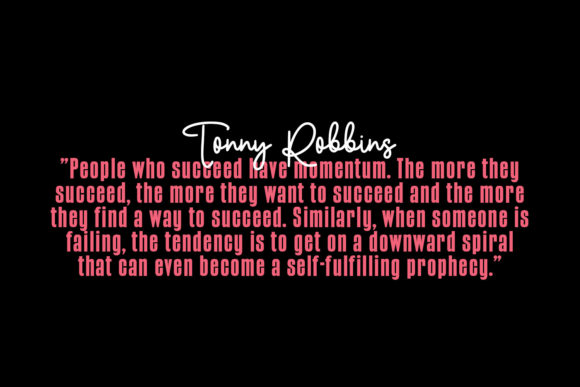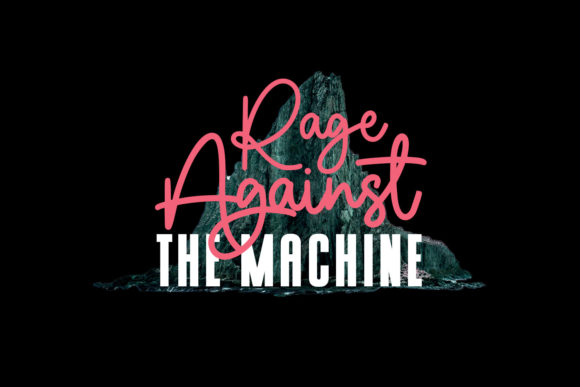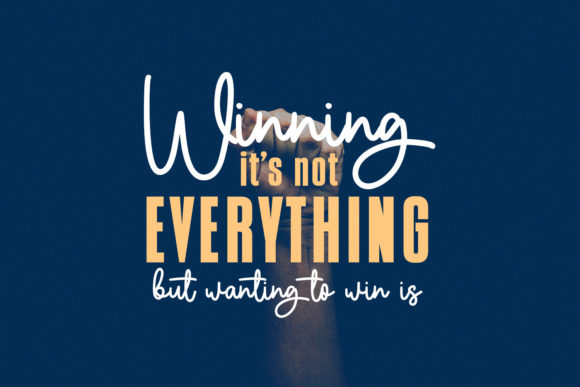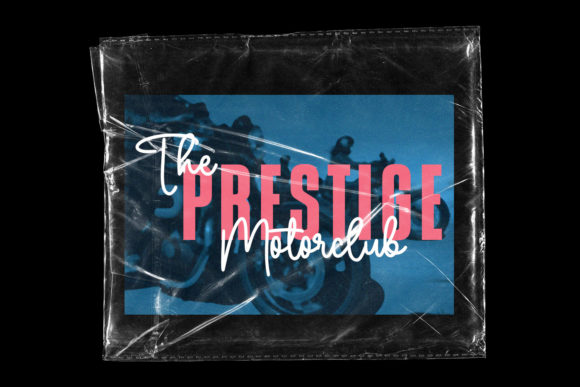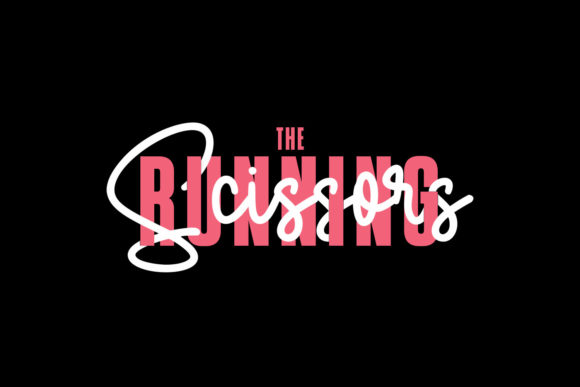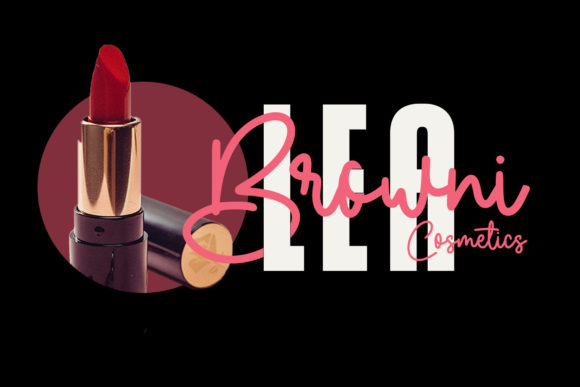
Fujinstall Font Duo: Elevate Your Designs with this Stunning Sans Serif and Script Font Combination
Are you on the hunt for a font duo that can instantly elevate your designs and make them stand out from the crowd? Look no further than the Fujinstall Font Duo, a cool and versatile combination of sans serif and script fonts. This ravishing font duo is perfect for designers and crafters who want to add a touch of elegance and sophistication to their work.
What is Fujinstall Font Duo?
The Fujinstall Font Duo is a carefully crafted font combination that includes a sans serif font and a beautiful script font. The sans serif font is clean, modern, and highly legible, making it perfect for headlines, titles, and short paragraphs of text. The script font, on the other hand, is elegant, flowing, and perfect for adding a touch of whimsy and personality to your designs.
Features of Fujinstall Font Duo
The Fujinstall Font Duo comes with a range of features that make it an excellent choice for designers and crafters. Some of its key features include:
- Versatility: The Fujinstall Font Duo is incredibly versatile and can be used for a wide range of design projects, from wedding invitations and stationery to social media posts and more.
- Elegant Style: The font duo has an elegant and sophisticated style that is sure to impress your clients and audience.
- Easy to Read: The sans serif font is highly legible and easy to read, making it perfect for body text and short paragraphs.
- Customizable: The Fujinstall Font Duo can be easily customized to fit your design needs, including adjusting the font size, color, and style.
Uses of Fujinstall Font Duo
The Fujinstall Font Duo is perfect for a wide range of design projects, including:
- Wedding Invitations: Create beautiful and elegant wedding invitations that will set the tone for the big day.
- Stationery: Design stunning stationery, including notecards, greeting cards, and more.
- Social Media Posts: Create eye-catching social media posts that will grab the attention of your audience.
- Branding: Use the Fujinstall Font Duo to create a consistent brand identity across all your marketing materials.
Why Choose Fujinstall Font Duo?
So, why choose the Fujinstall Font Duo over other font combinations? Here are just a few reasons:
- Unique Style: The Fujinstall Font Duo has a unique and distinctive style that will set your designs apart from the crowd.
- High-Quality: The font duo is of extremely high quality, with clean lines, elegant curves, and a sophisticated feel.